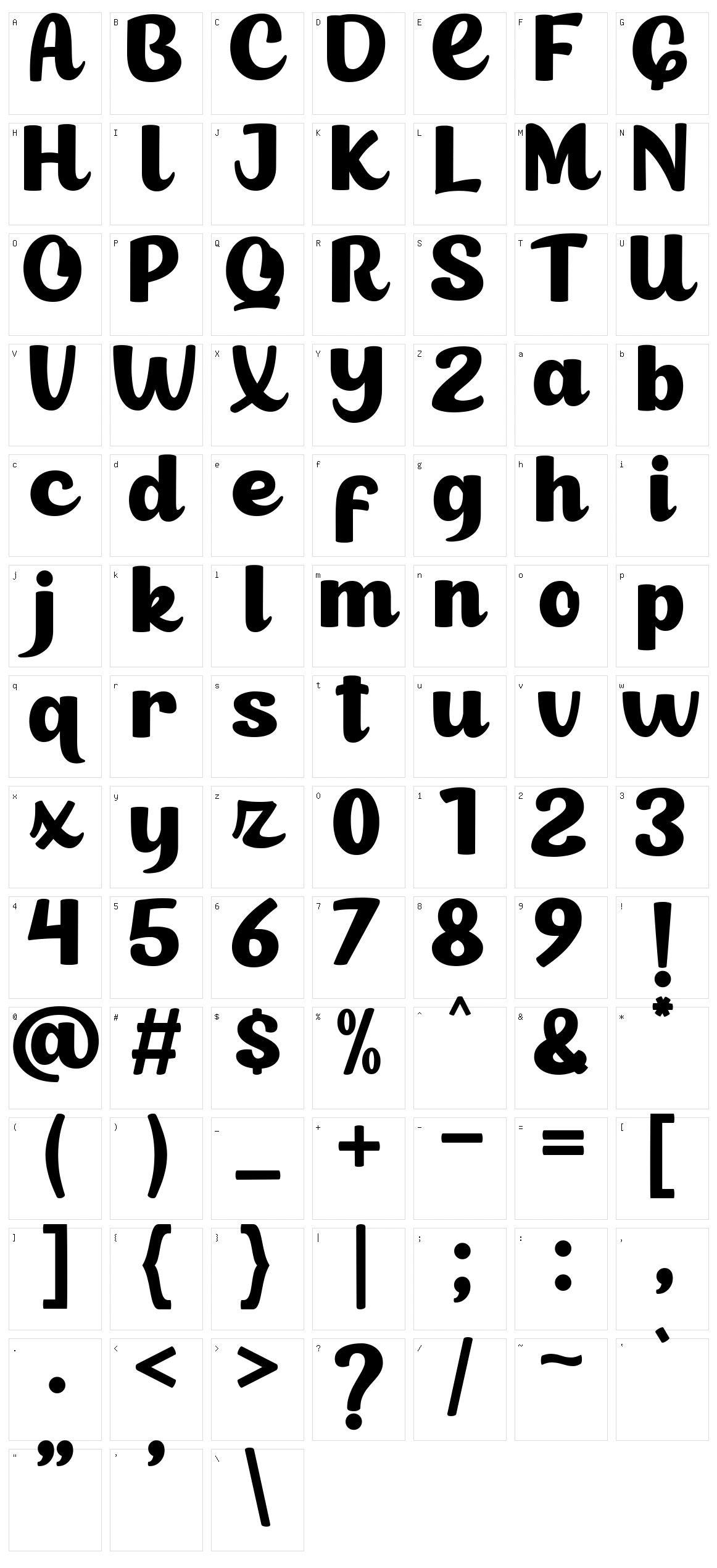
The free font Cheerful Dynamite is carefully designed by Ahwe Project, showcasing a thoughtful balance of creativity and usability and falls under the Groovy font style. When you download the ZIP file, it contains only 58.17 KB of font files, making it lightweight and quick to download. Please review the license details below to understand permitted usage and distribution rights. If license information is not available, we recommend using this font for personal projects only or contacting the author directly for commercial usage permissions.